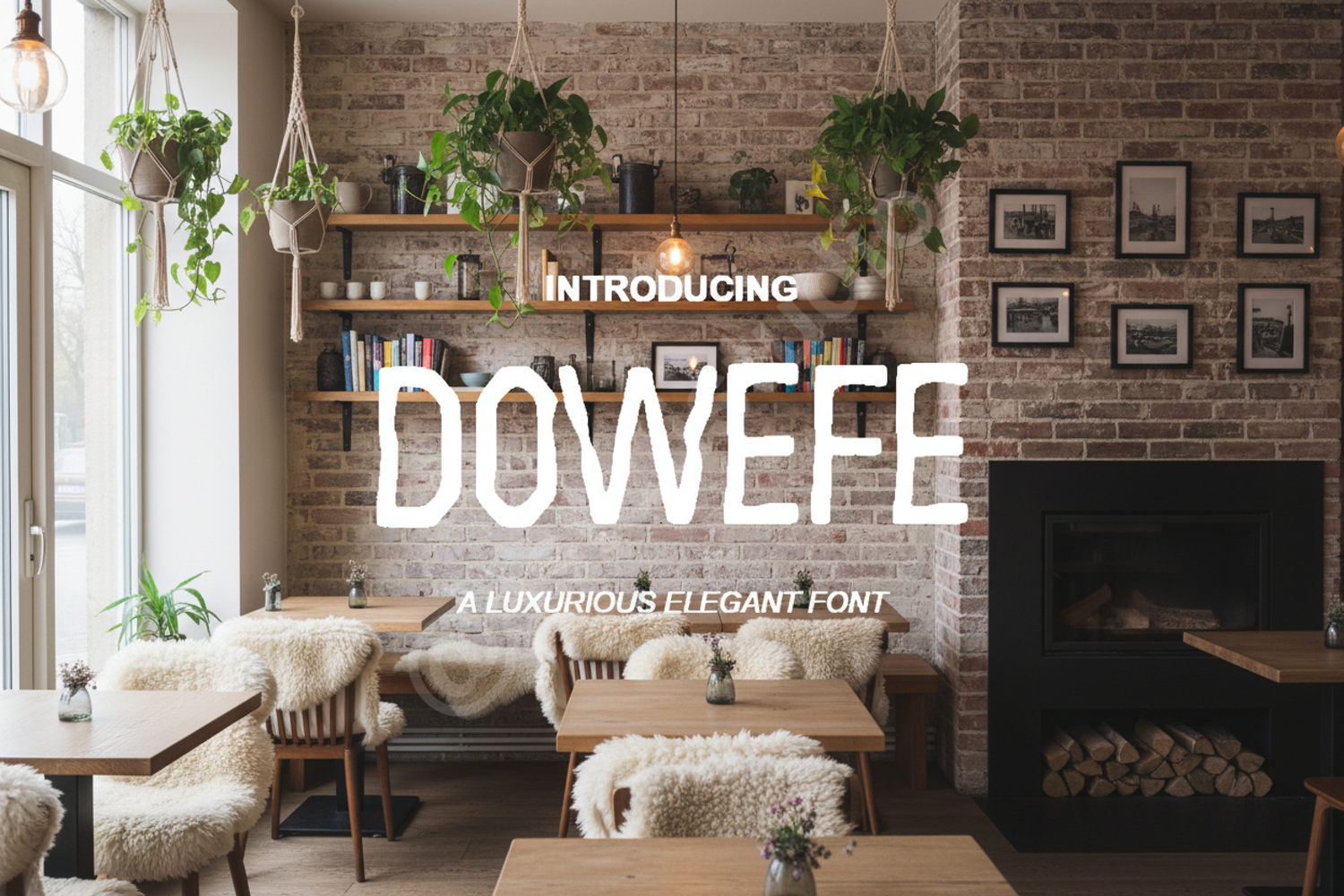
Dowefe | Modern Elegant Serif Typeface
Dowefe
Experience the perfect blend of classic sophistication and modern flair with Dowefe. This premium serif typeface is meticulously crafted to bring a touch of luxury and refinement to any creative project. With its clean lines and unique character shapes, Dowefe stands out as a versatile choice for designers seeking high-end aesthetics and professional legibility.
- Luxury Branding and Identity Design
- High-end Editorial and Magazine Layouts
- Sophisticated Wedding Invitations and Stationery
- Minimalist Logo Design and Wordmarks
- Premium Product Packaging
- Stylish Social Media Graphics and Quotes